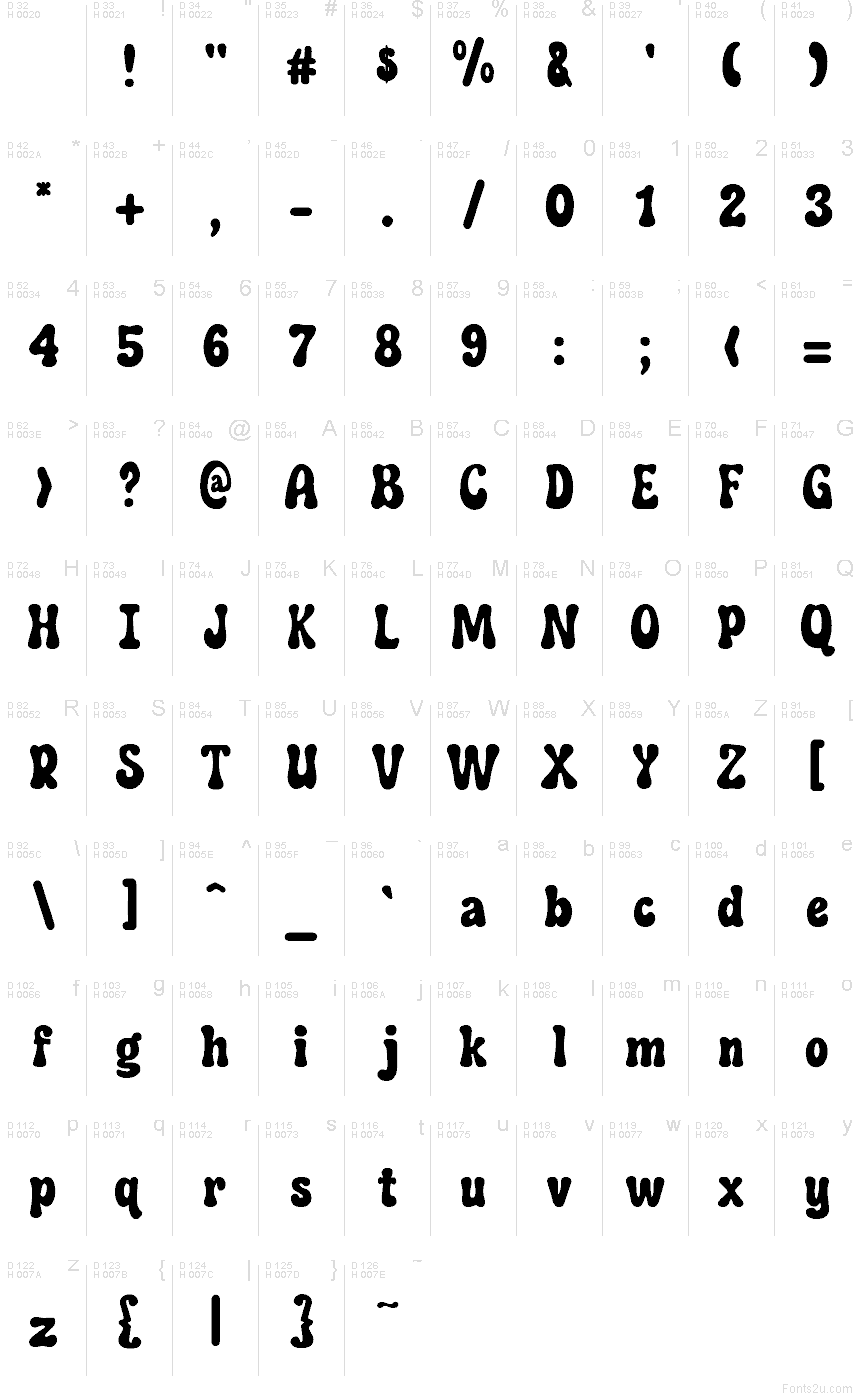
Chocolate and Vanilla
Chocolate and Vanilla font by BlackFridayFont FMF is a free groovy display typeface that feels like a retro ice cream sign come to life. Its plump, rounded letters look soft and melty, with inky curves that stack together like scoops in a cone. The rhythm is bouncy but still easy to read, giving headlines that friendly, hand-drawn warmth you usually only get from painted storefronts and vintage menus.
Using Chocolate and Vanilla, you can instantly sweeten branding for ice cream parlors, candy packaging, bakeries, kids’ party invitations, playful logos, stickers, and social media graphics. This free font shines when set large, where the thick strokes and chunky silhouettes can really show off. Pair it with a simple geometric sans for small text to keep things readable while letting Chocolate and Vanilla handle all the tasty personality.